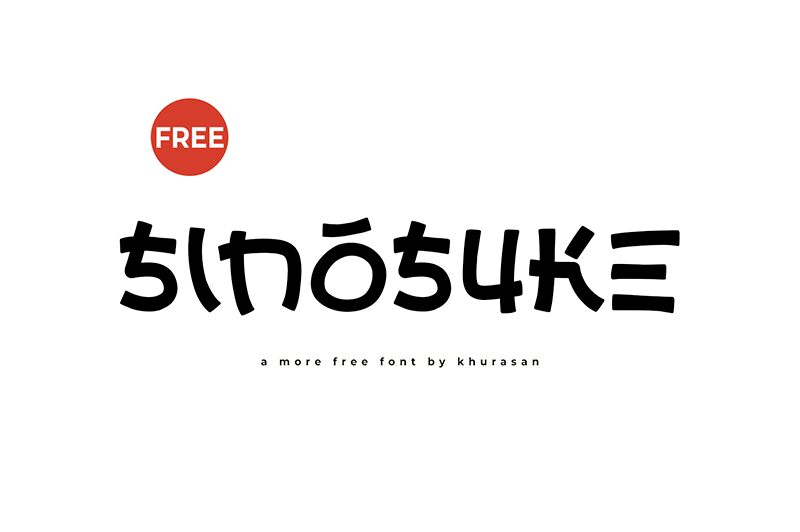
Sinosuke, designed by Khurasan, is a captivating typeface that exudes the essence of faux Japanese style with its semi-bold weight and semi-expanded width. Its distinctive character shapes draw inspiration from the far-eastern calligraphy tradition, showcasing a unique blend of modern typography and cultural artistry. Each stroke in Sinosuke's design carries a deliberate form, echoing the aesthetic appeal often found in contemporary Japanese graphic design.
The typeface's foreign flair makes it particularly suitable for designs aiming to evoke an international or exotic atmosphere. Sinosuke's semi-bold weight ensures that it stands out on any canvas without overwhelming other design elements, while its expanded letterforms offer readability even at larger scales.
Ideal for creative projects that require an artistic touch with an oriental twist, Sinosuke can be leveraged across various mediums such as branding, poster design, apparel graphics, and digital media. Its versatility lies in its ability to bridge cultures through typography – making it a go-to font for designers looking to infuse their work with a sense of global sophistication.